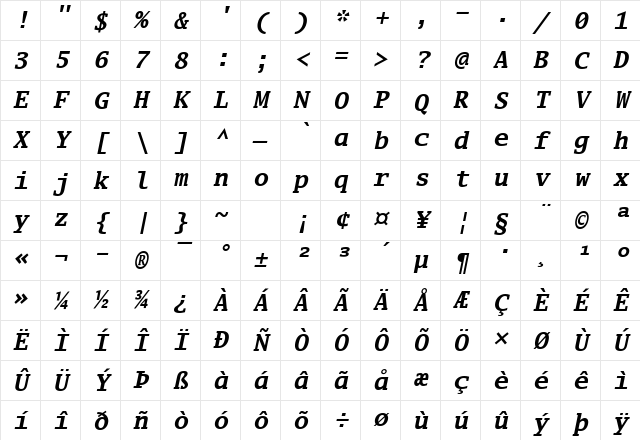
GoMono NF Bold Italic Free Font
GoMono NF Bold Italic
Foundry: Bigelow & Holmes Inc.
Designer: Kris Holmes and Charles Bigelow
Design Context for GoMono NF
GoMono NF uses fixed-width spacing throughout, giving it the structured, systematic character associated with coding environments and technical documentation. The slanted form adds forward momentum and visual energy. Its bold stroke weight gives it real presence on the page.